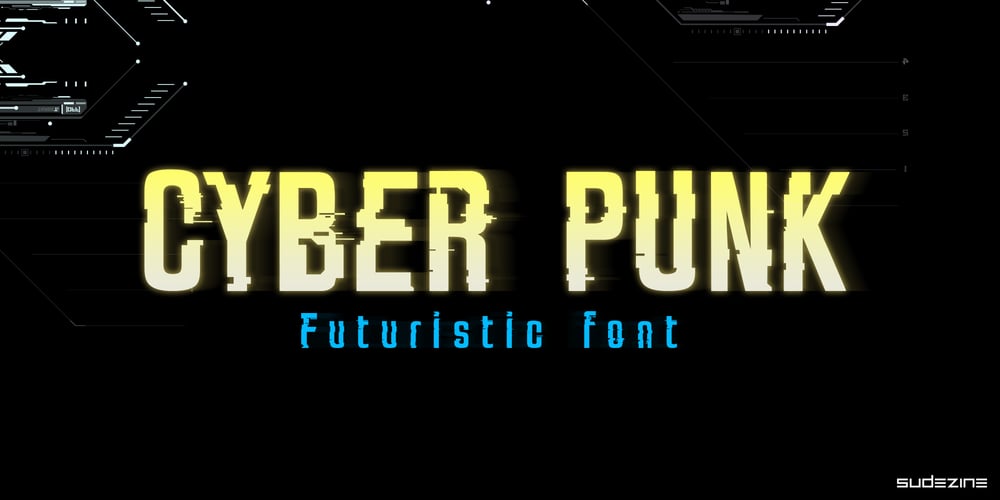
SDGlitch Font Family was designed by Suhee Hwang and published by Sudezine. SDGlitch contains 1 styles and family package options. SDGlitch is a futuristic cyber-style font. You can use this font for logos, quotes, invitations, greeting cards, journals, posters, clothing, and more. This font will infuse your designs with playfulness and fun!